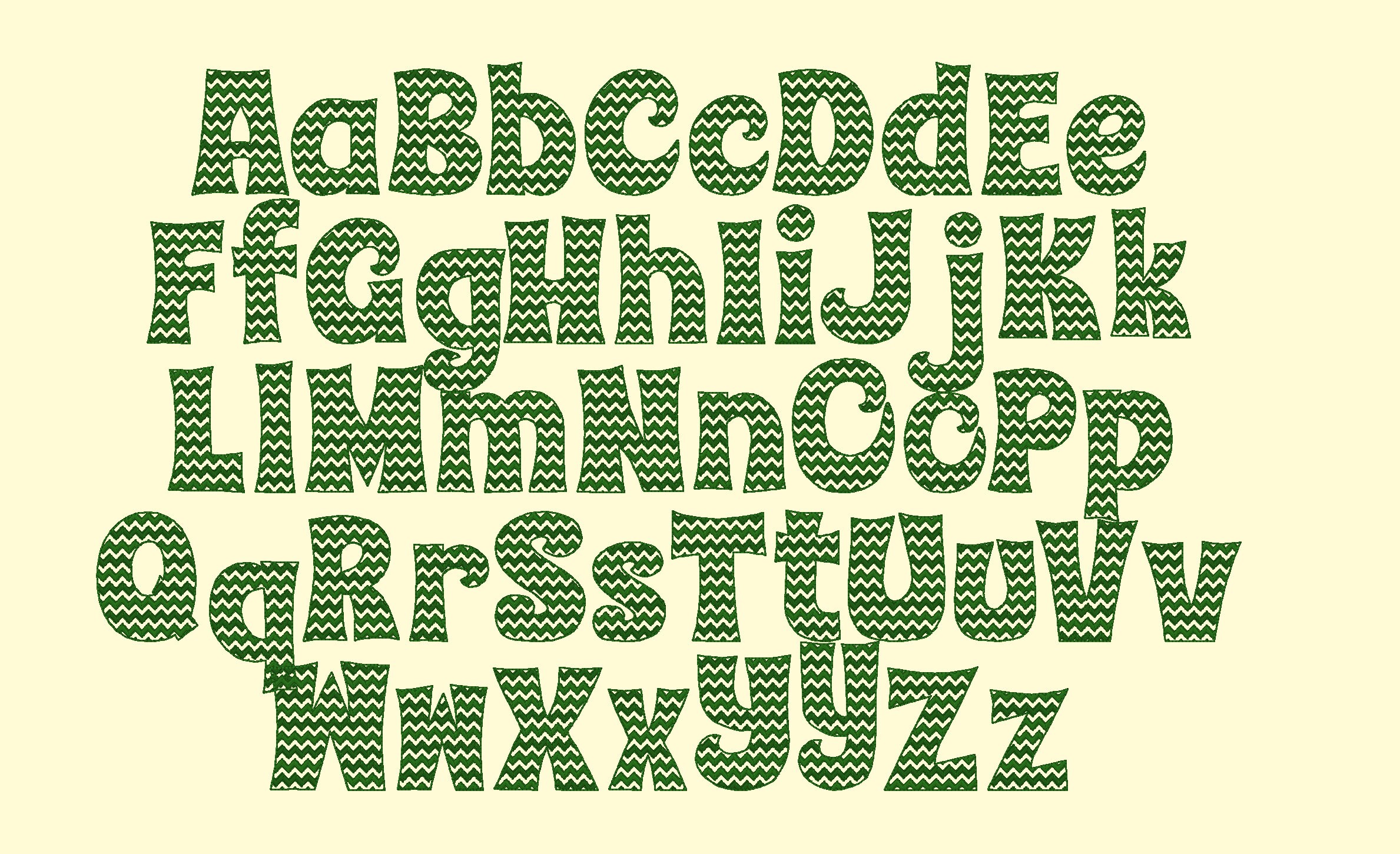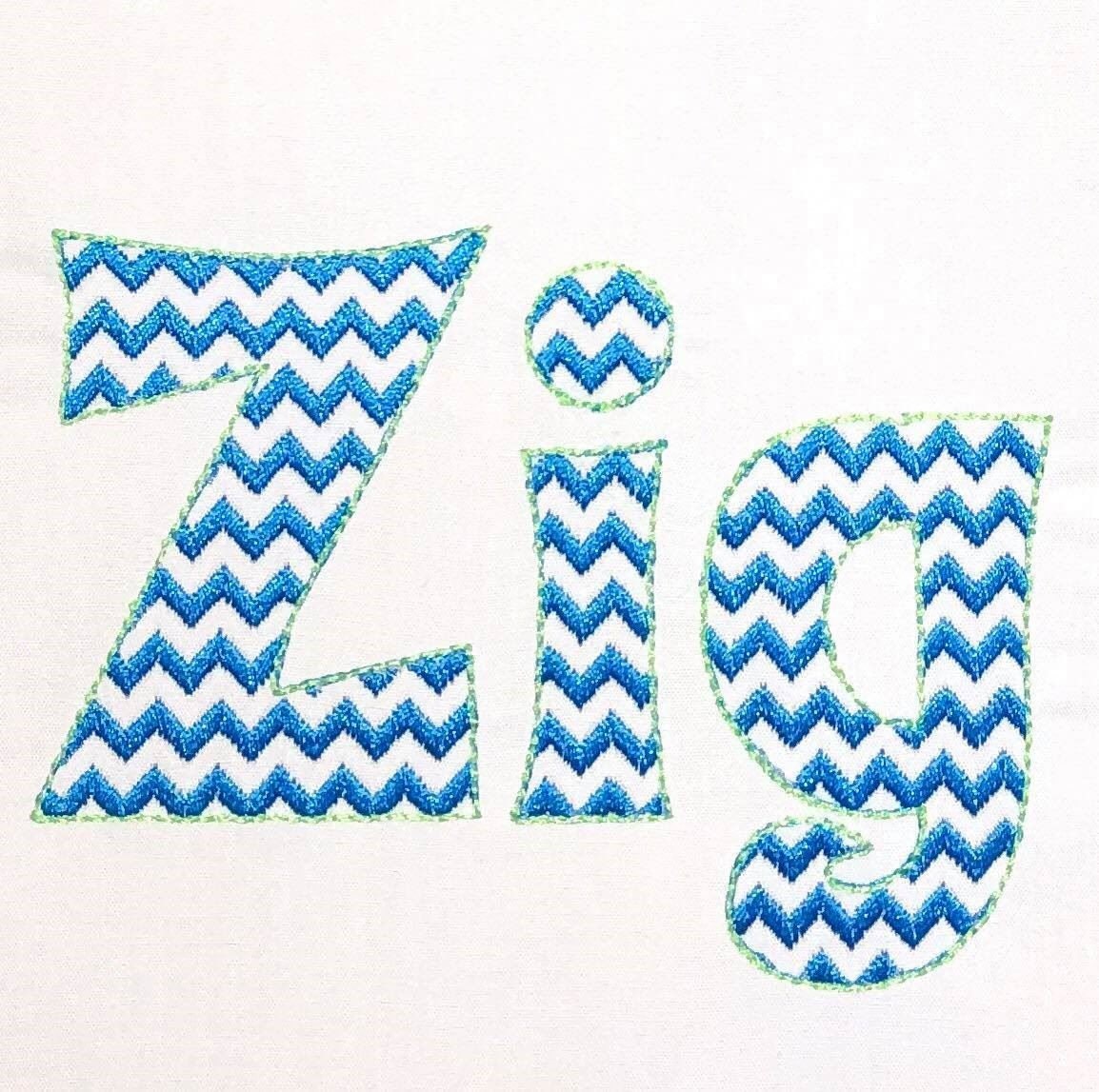
Chevron RIC RAC Font light sketch outline machine embroidery designs font alphabet letters 2, 3, 4, 4.5in BX vp3 xxx pes and other formats
This is a quick stitch design, it looks like laces, and the background fabric looks through. Stunning effect!
Chevron lines are part of the embroidery.